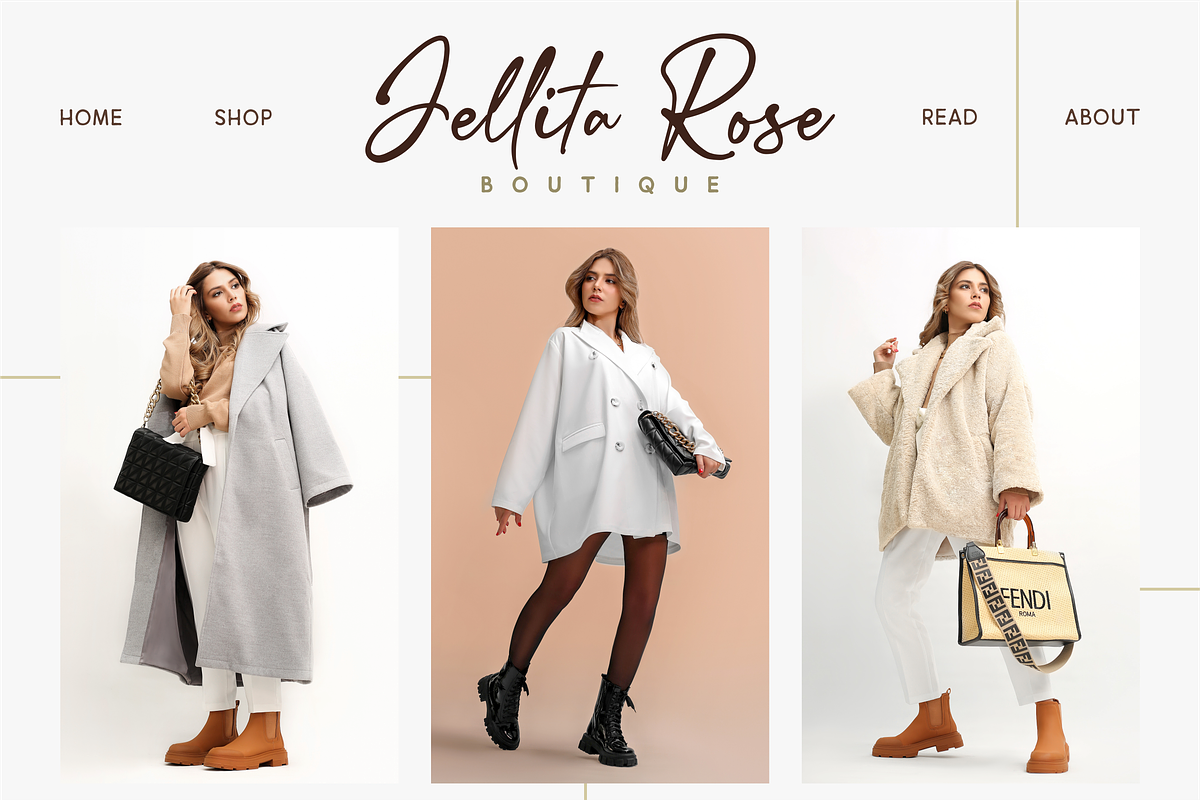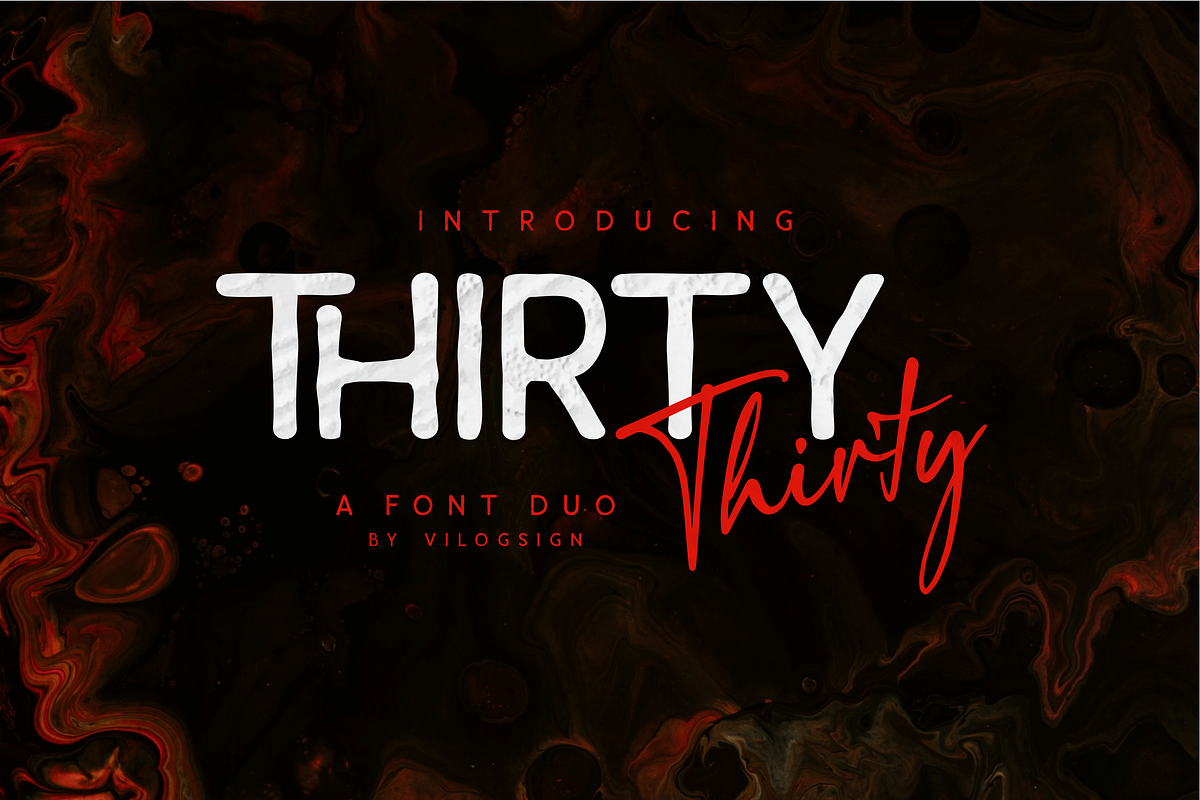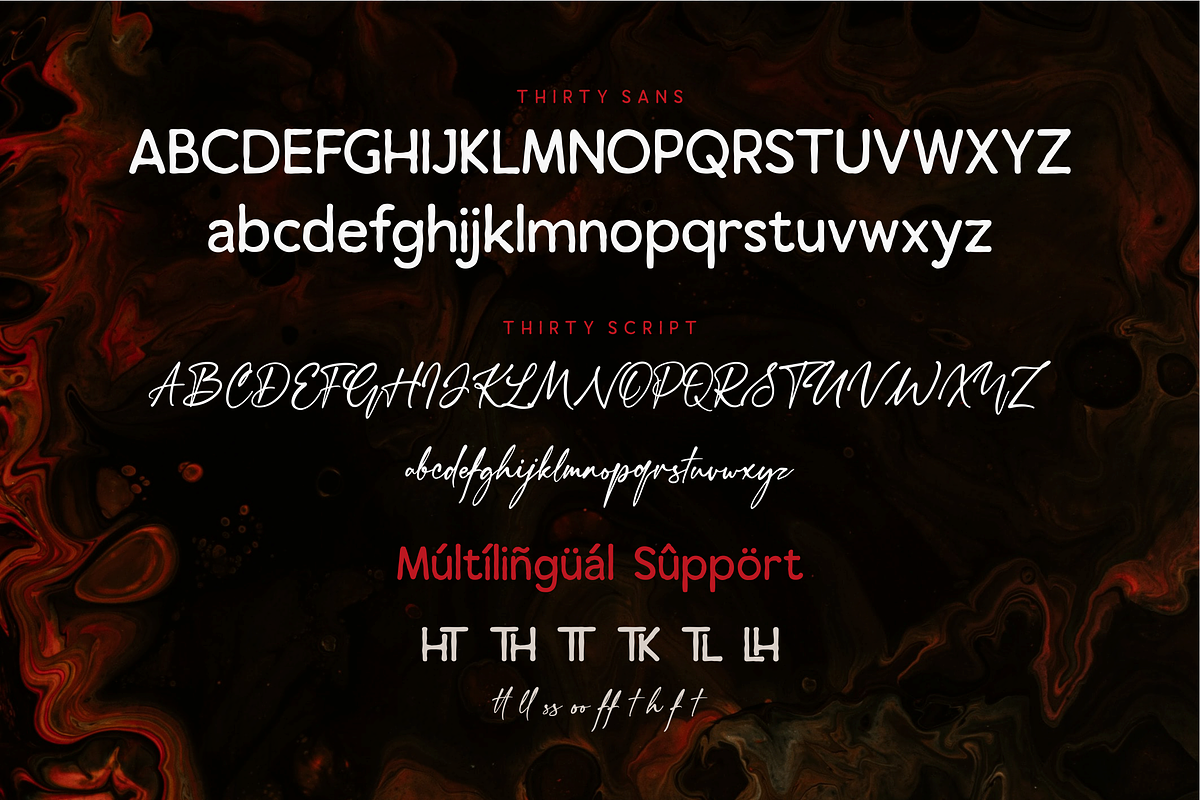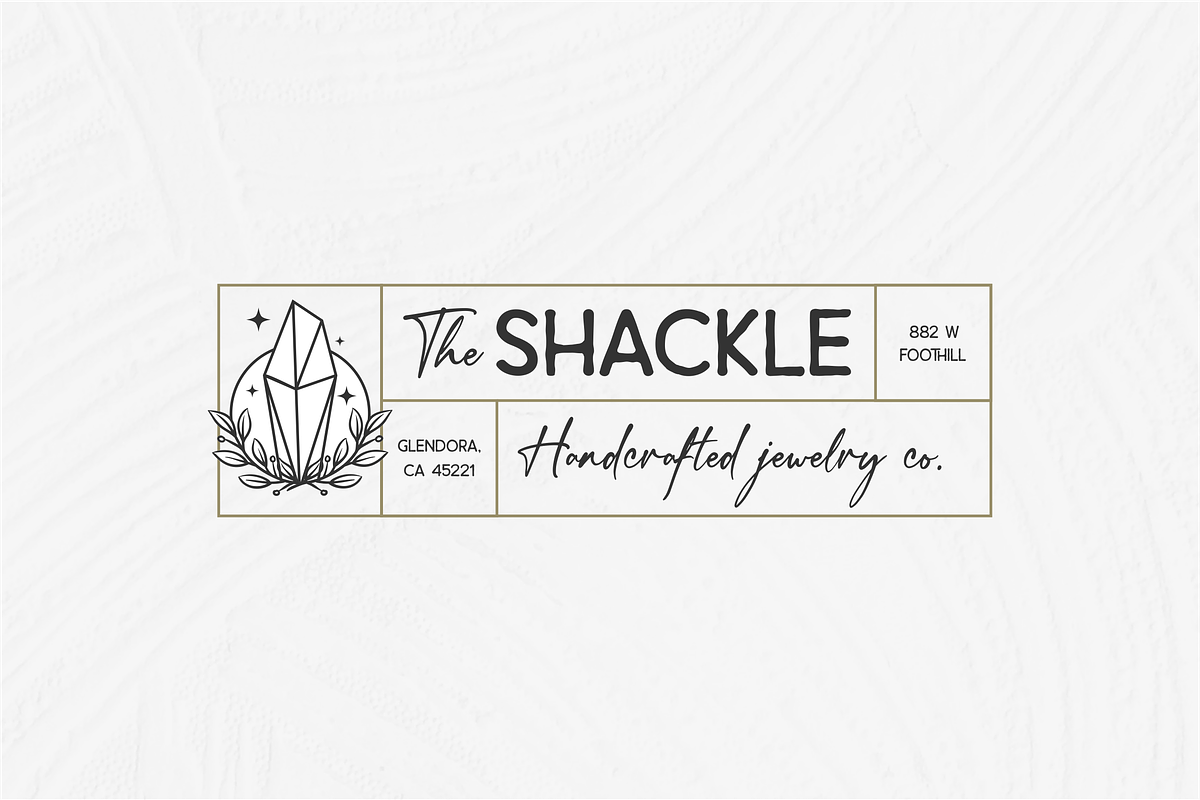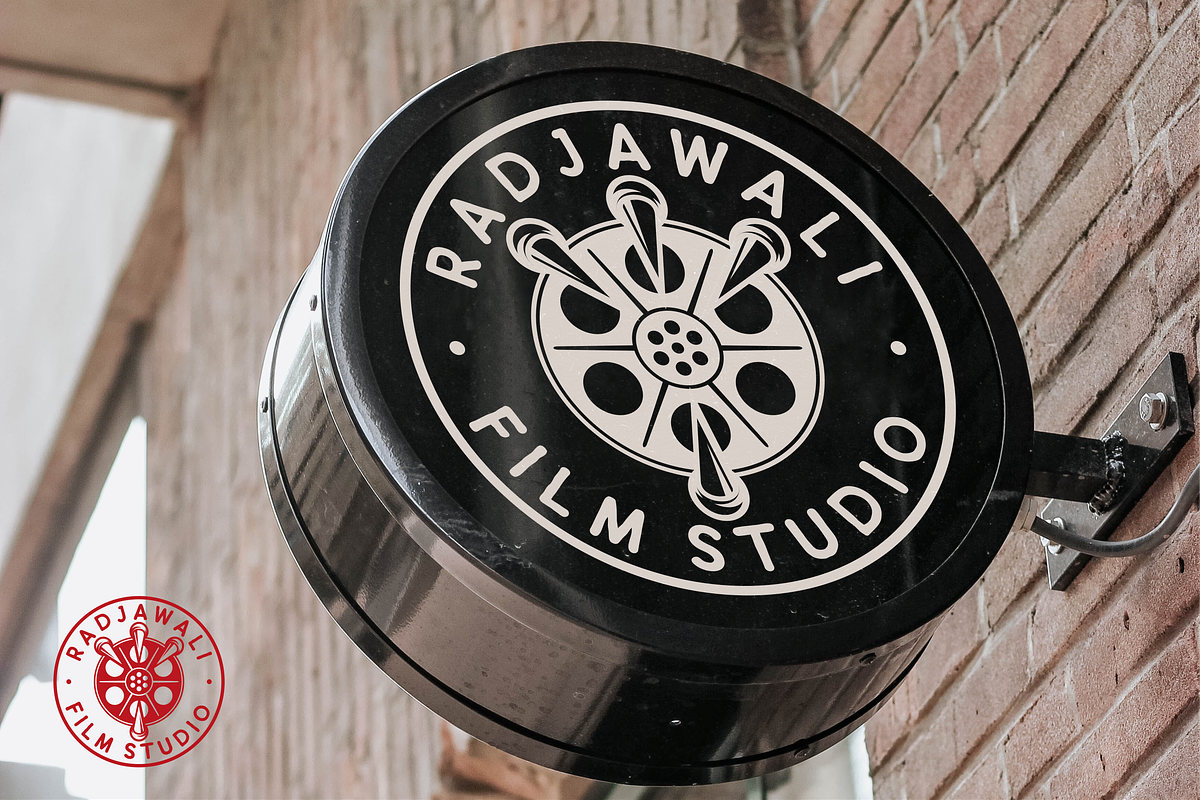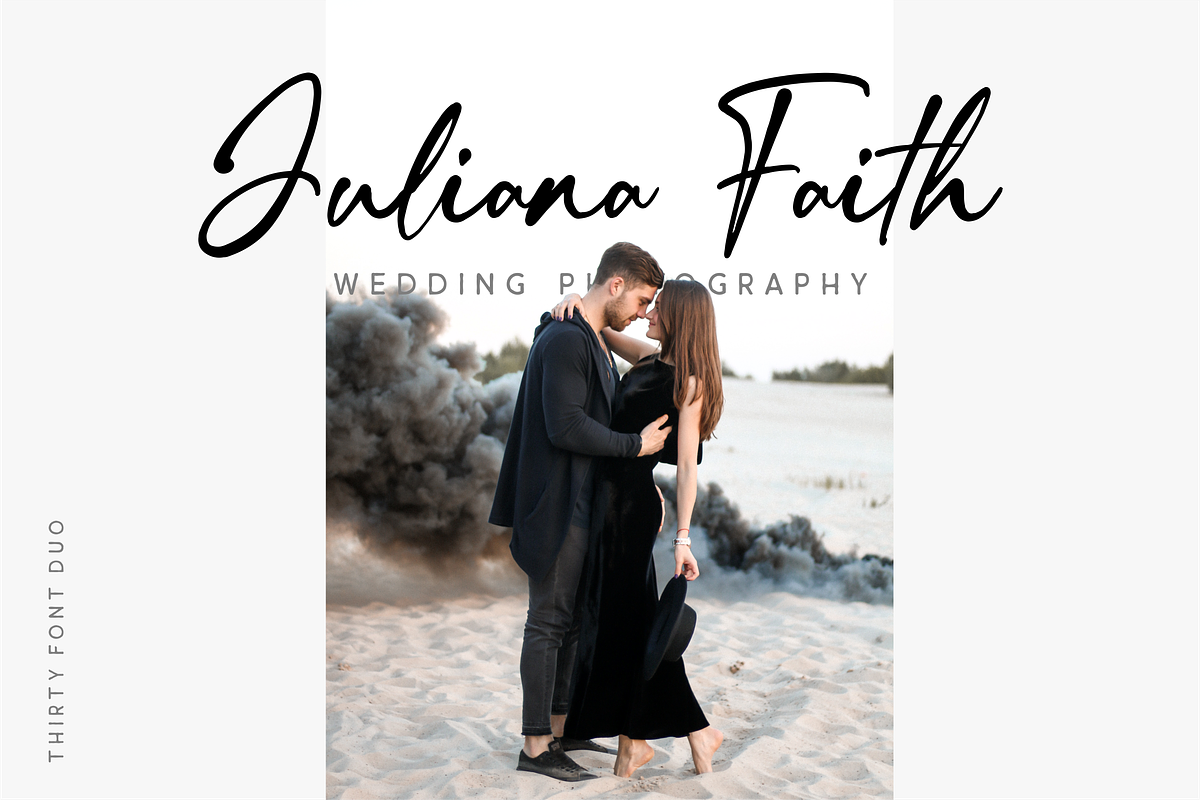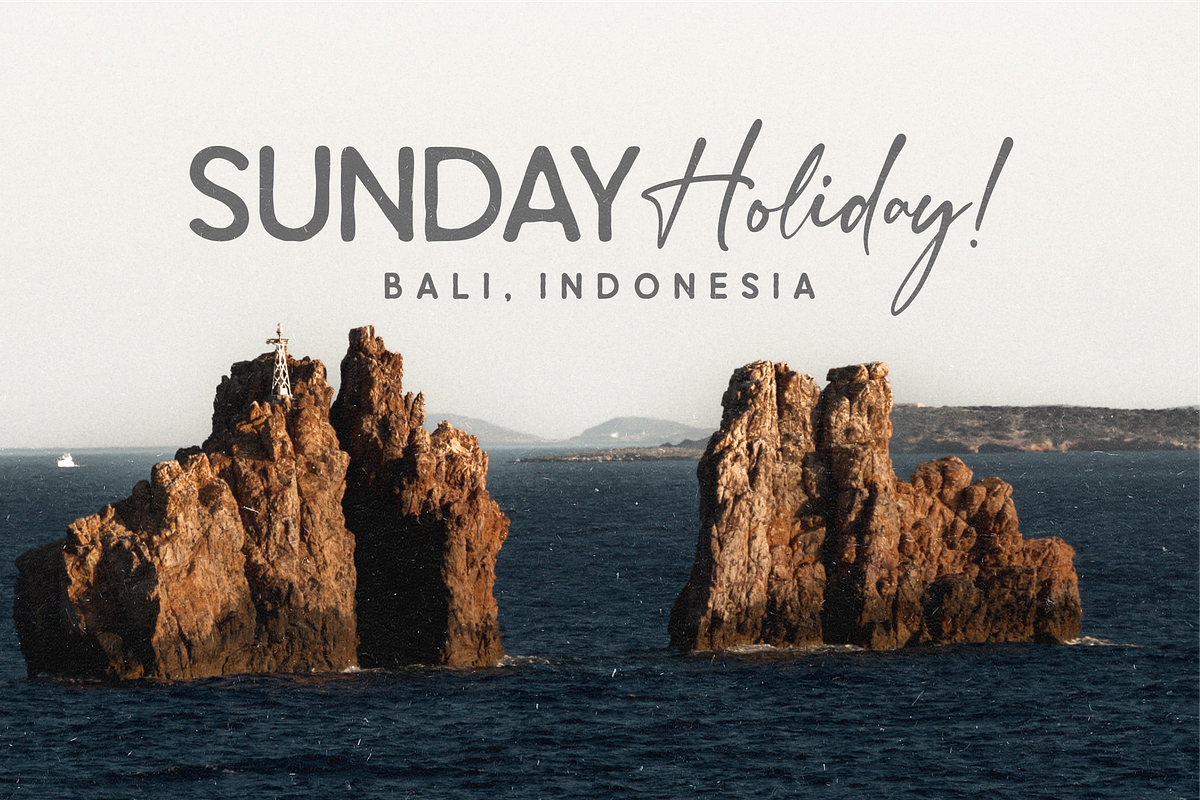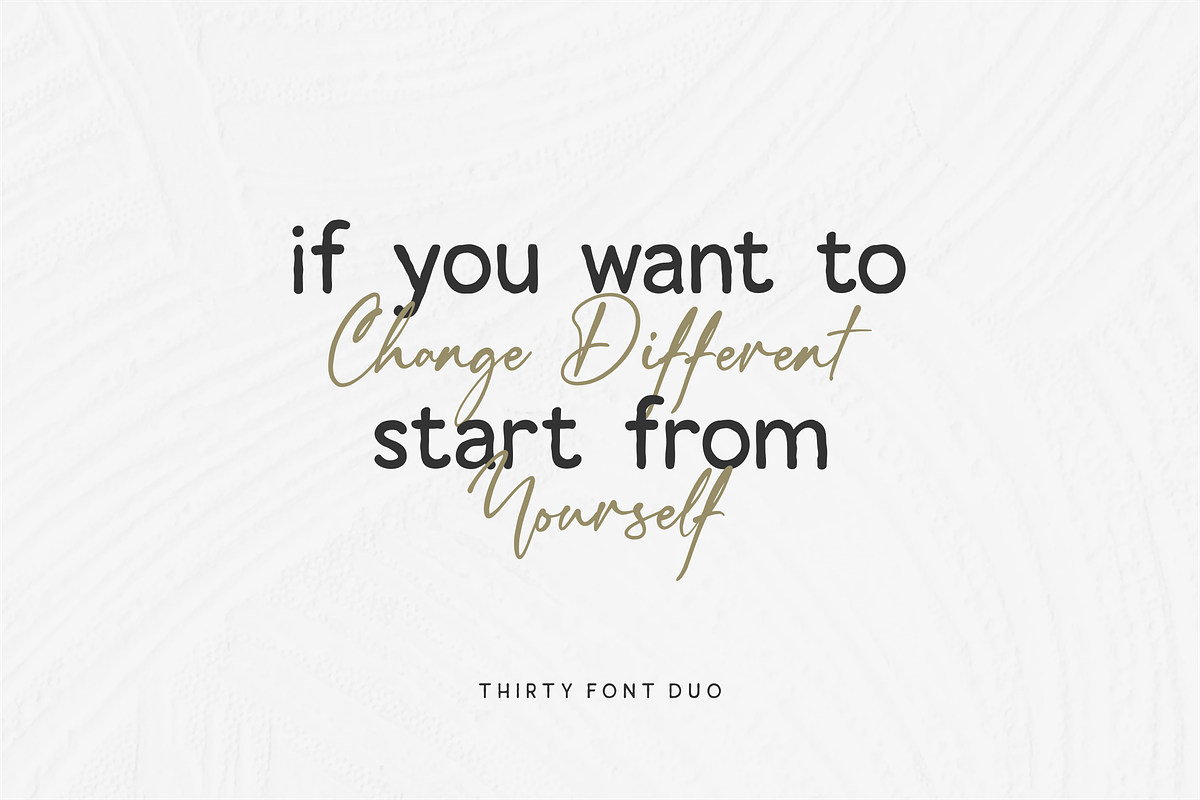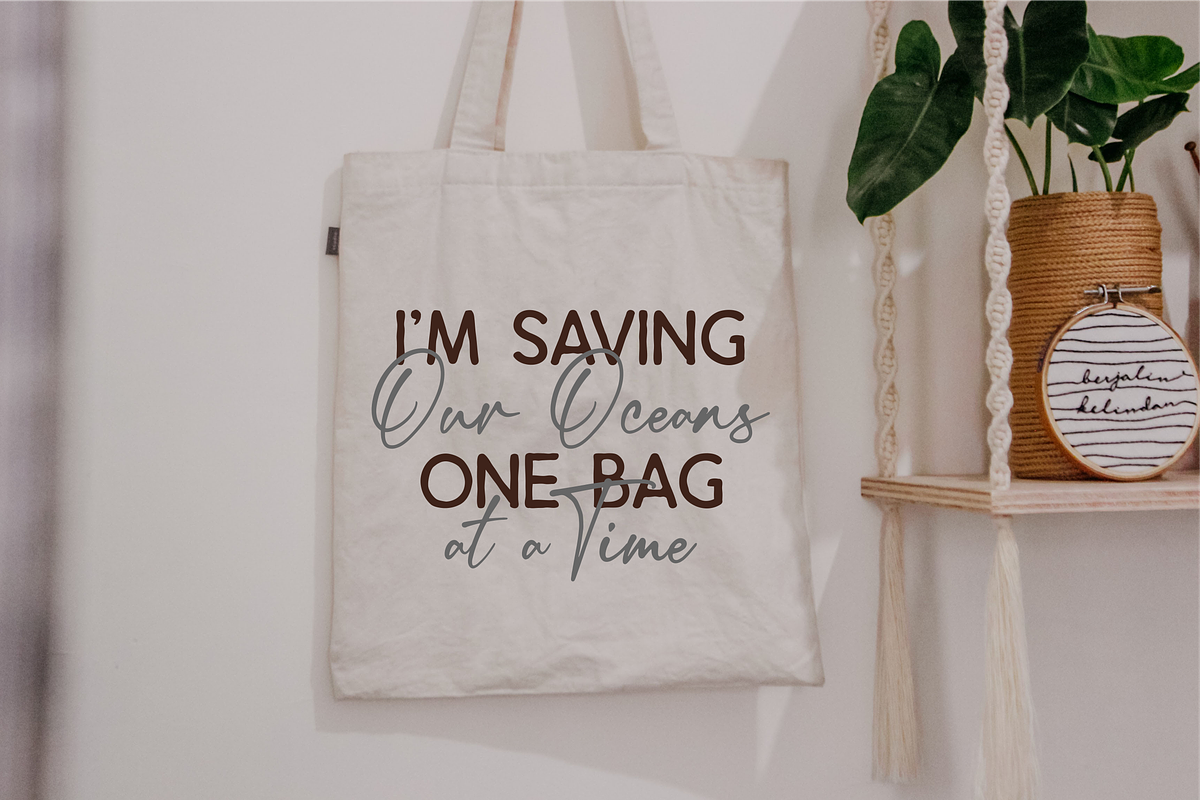
Thirty Font Duo
Hi,,, Introducing "Thirty" a font duo!!!
Vintage, signature, handwritten typeface. This type of font perfectly made to be applied especially in Branding, and the other various formal forms such as books, greeting / wedding cards, packaging, fashion, make up, stationery, novels, labels or any type of advertising purpose. This font is very amazing with Arternative, ligature, and multilingual support to complete your need.